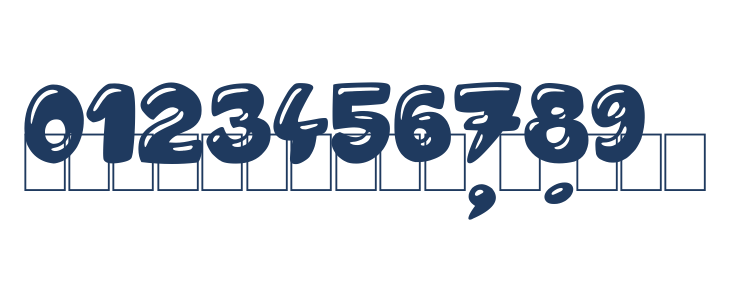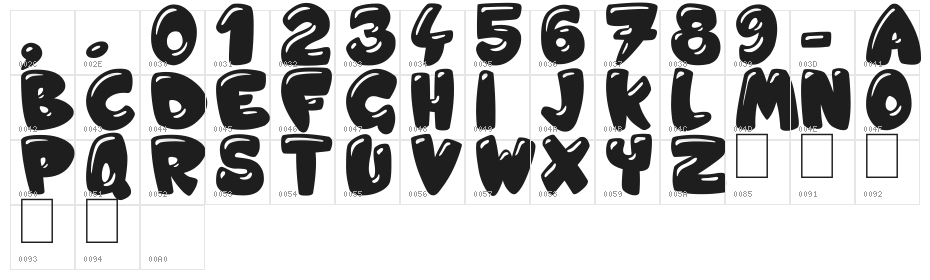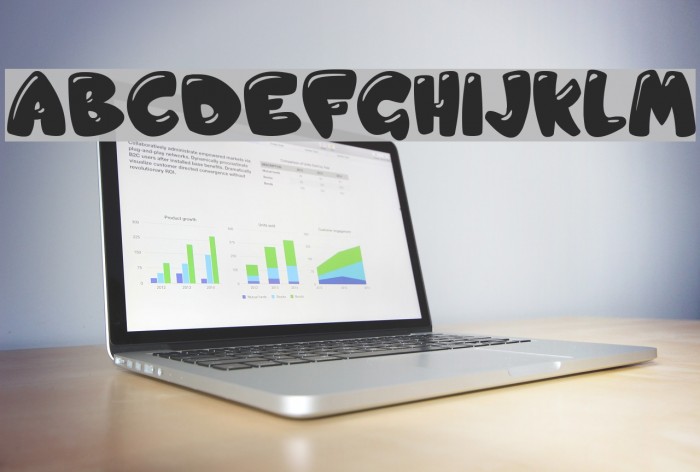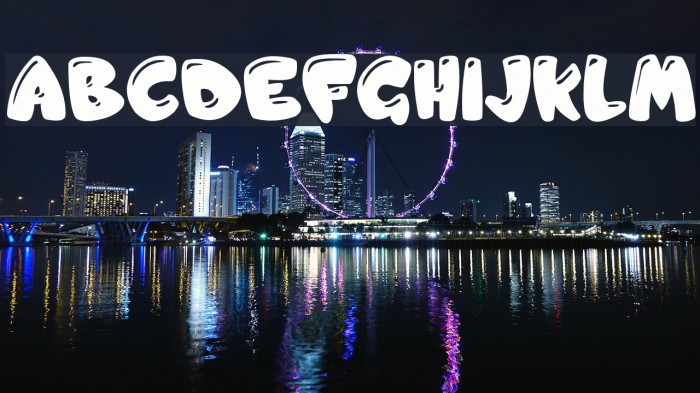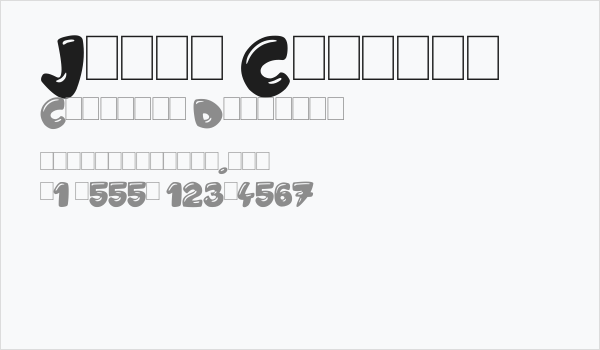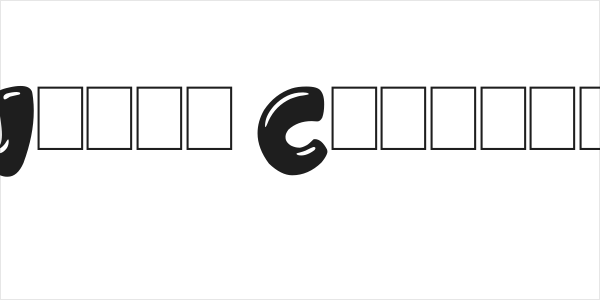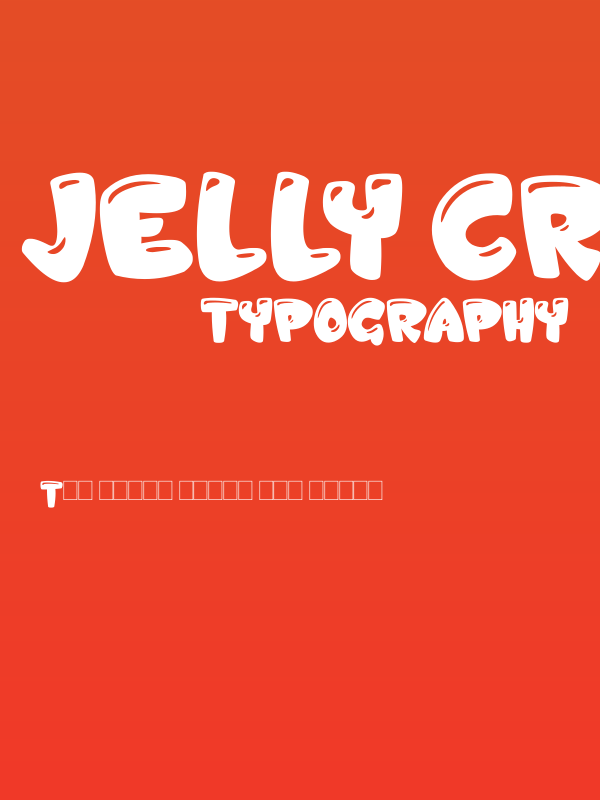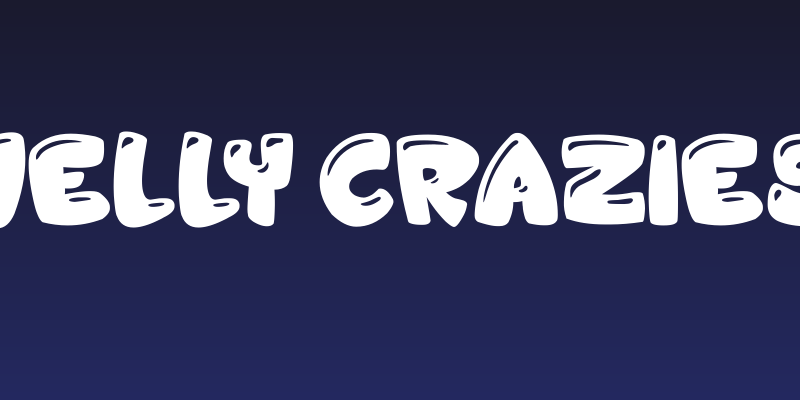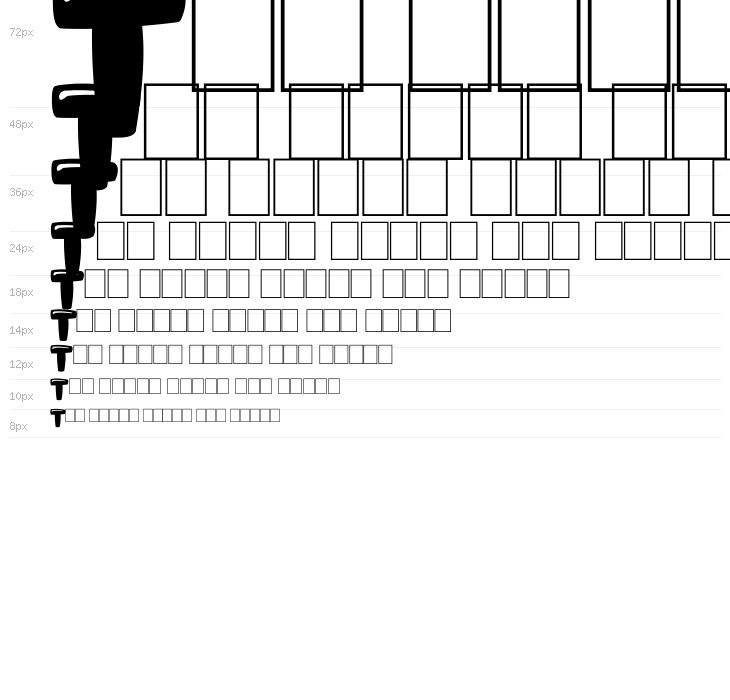
Jelly Crazies Font
Jelly Crazies Description
This playful and bold font features a bubbly, rounded style that exudes a sense of fun and whimsy. The characters are thick and substantial, with a slightly irregular shape that adds to their charm. The font is highly legible, with each letter distinct and easily recognizable. The numbers and special characters maintain the same playful aesthetic, making it versatile for various uses. Its boldness and unique style make it stand out, perfect for projects that require a touch of creativity and personality.
Overall StylePlayful, Fun, Whimsical
Proposed ProjectsIdeal for children's books, party invitations, playful branding, and creative posters.